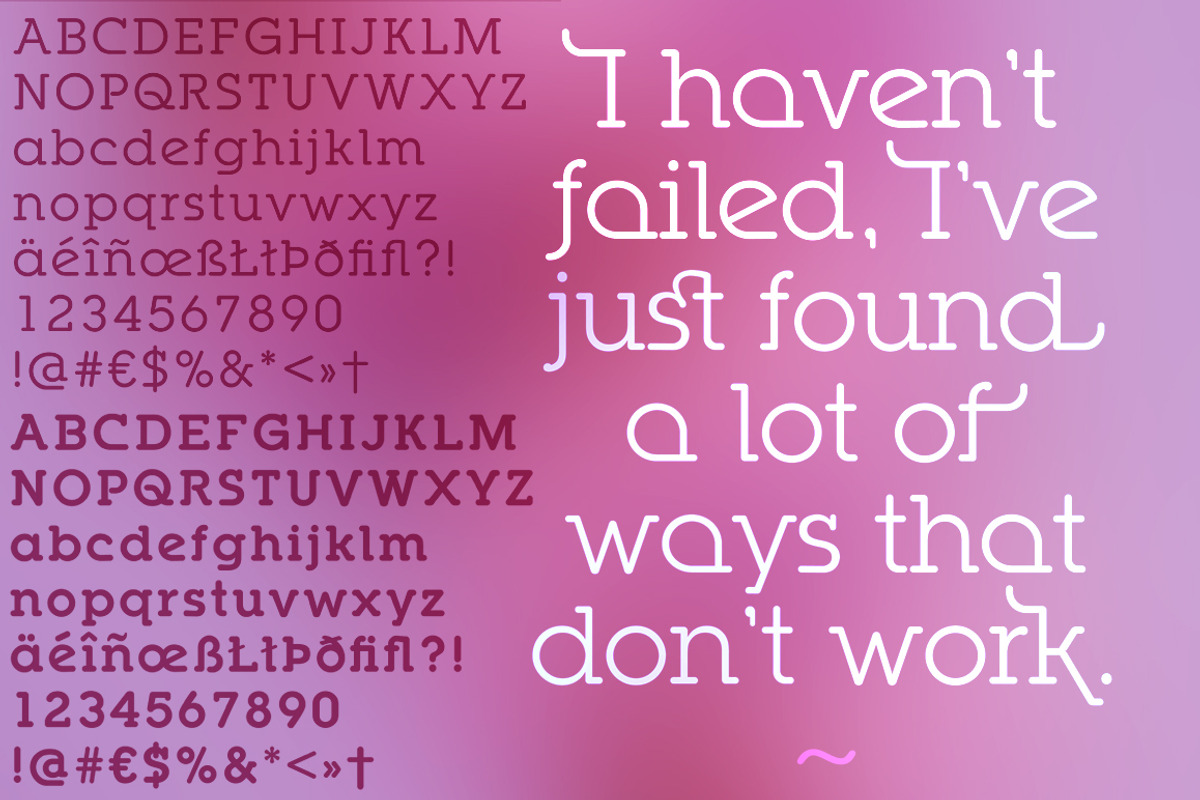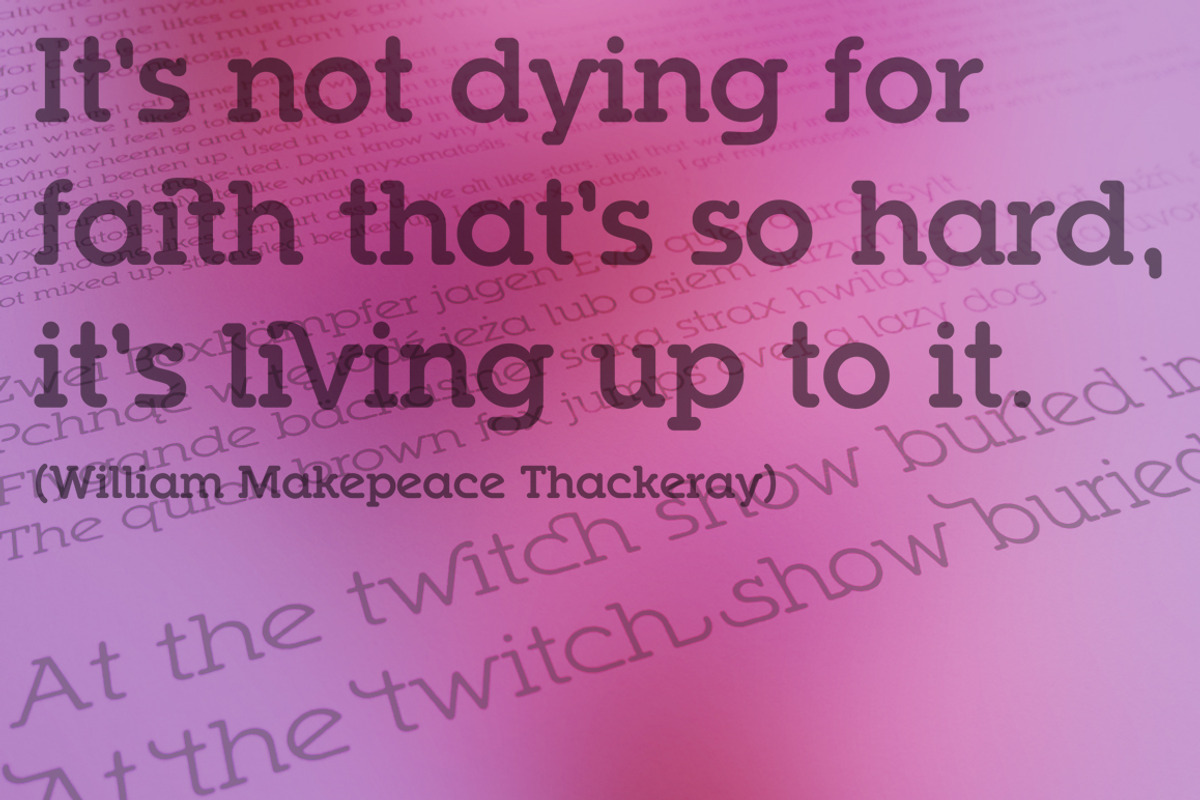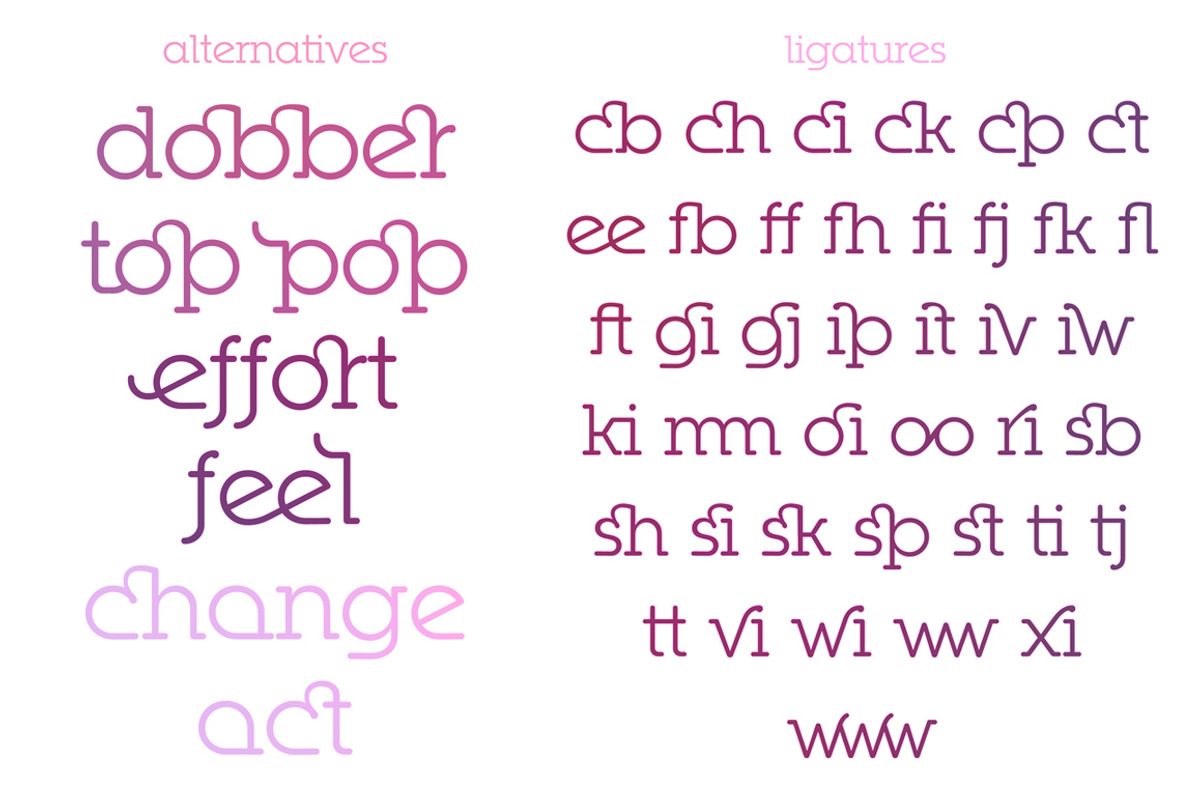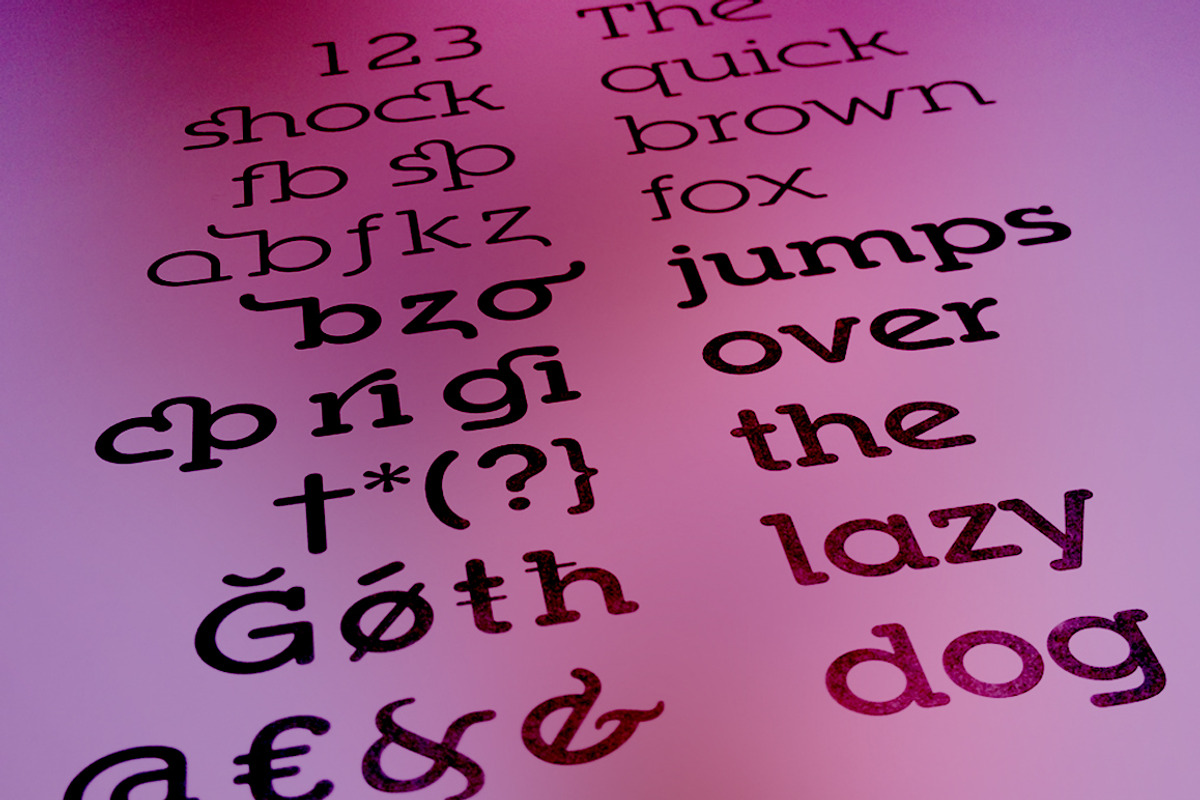
Ponsi Rounded Slab
Ponsi Rounded Slab by TypeFaith Fonts is a font selected for branding, posters, packaging, typography.
- All weights contains an extended set of ligatures, swashes en alternatives.
Why Ponsi Rounded Slab is worth a look
Ponsi Rounded Slab by TypeFaith Fonts fits naturally into Branding, posters, packaging, typography.